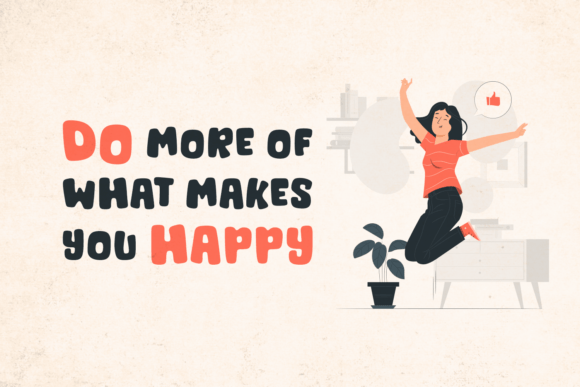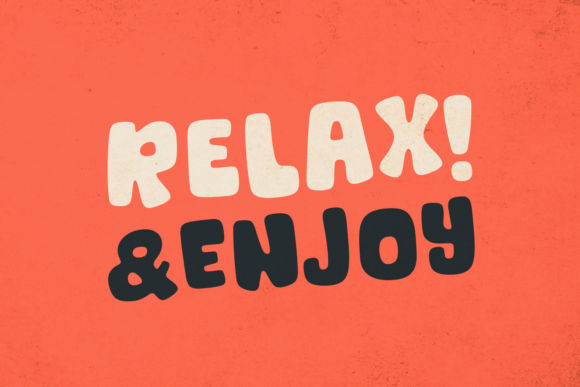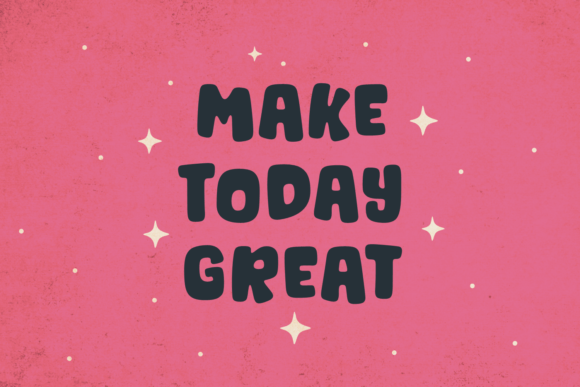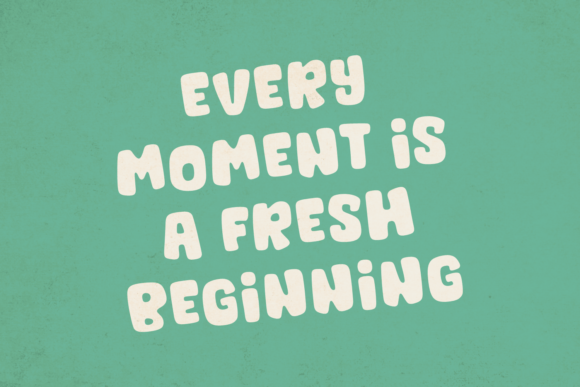
Introduction to Feeling Happy Font
Feeling Happy Font is a hand-drawn masterpiece designed to capture joy and relaxation through every curve and line.
Its whimsical style makes it a perfect fit for kid-friendly themes and joyful events Capturing the essence of happiness itself, this font breathes life into any design, making smiles infectious and celebrations even brighter.
Key Features of Feeling Happy Font
Why Choose Feeling Happy Font?